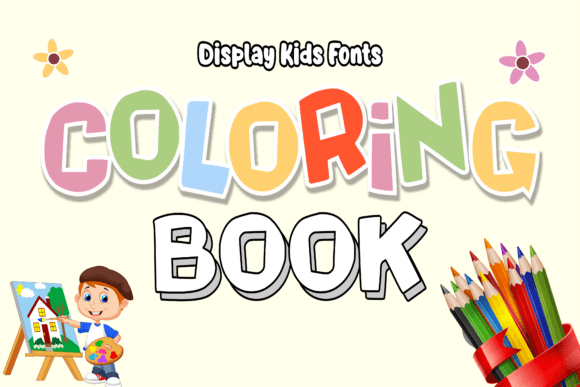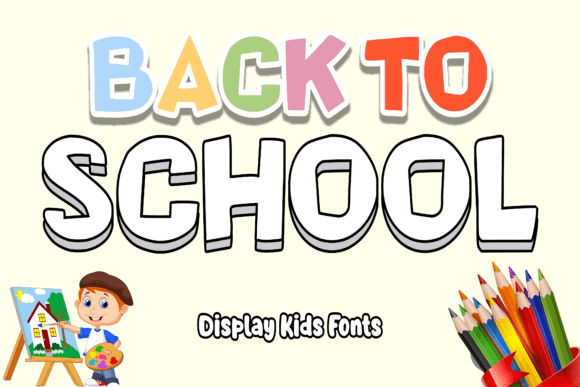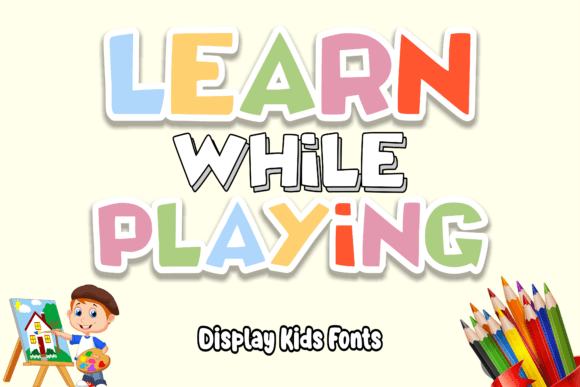
Coloring Book Font
About the Coloring Book Font
Let us introduce you to Coloring Book Font, where timeless design meets modern craftsmanship. Coloring Book is a cheerful font that brings fun and joy to your projects. With its cheerful style and appearance, this font offers flexibility for a variety of creative endeavors. Let this font add a pop of color and imagination to your designs, suitable for everything from posters, stickers, comics, and more.
Coloring Book Font’s playful, hand-drawn aesthetic makes it ideal for projects needing a lighthearted touch, such as children’s books, greeting cards, or branding for playful businesses. It excels in headlines, short text blocks, and decorative elements on packaging or posters. However, its informal nature makes it unsuitable for body text or situations requiring high readability, like website UI or long-form content.
Pairing Coloring Book with a clean sans-serif like Open Sans for body text creates a strong contrast and visual balance. For a more whimsical feel, consider pairing it with a script font like Great Vibes, but use it sparingly as an accent. Alternatively, a geometric sans-serif like Montserrat can add a touch of modern sophistication, tempering the font’s inherent playfulness.
The overall personality of Coloring Book is undeniably cheerful and friendly, conveying a sense of fun and approachability. It’s best suited for brands targeting younger audiences or those wanting to project a lighthearted and approachable image.
Coloring Book Font Usage Examples
Coloring Book Font Example